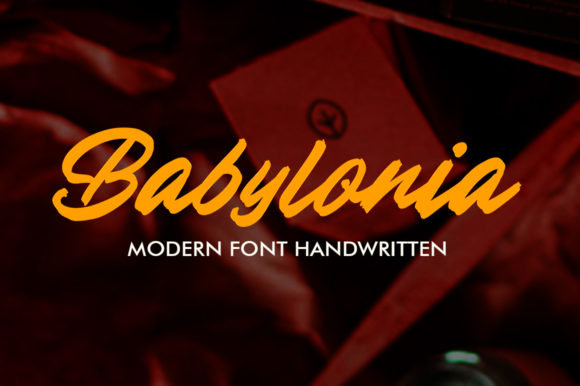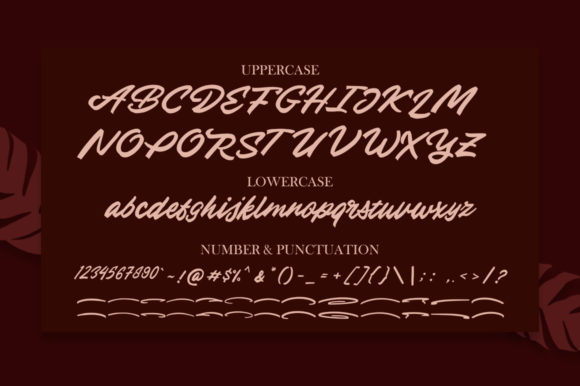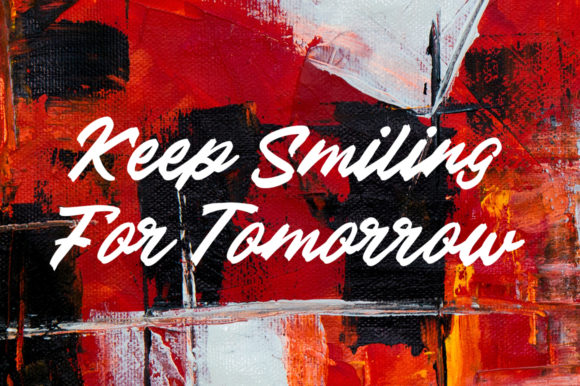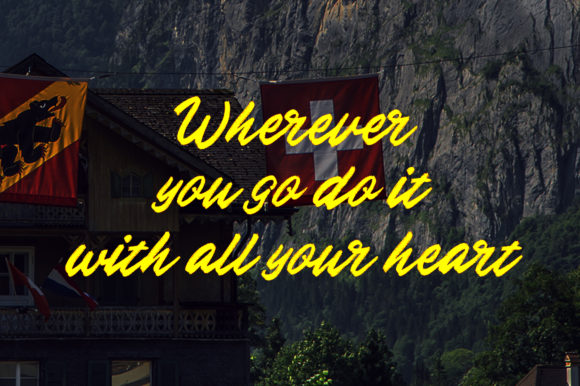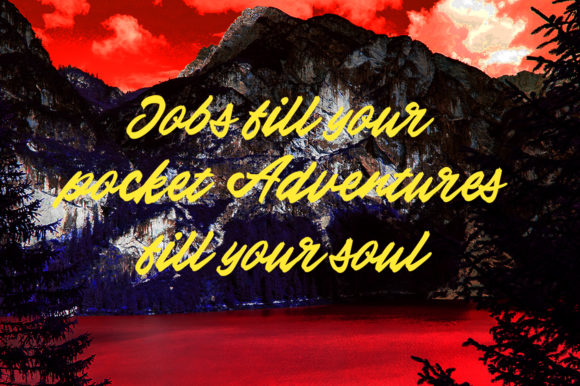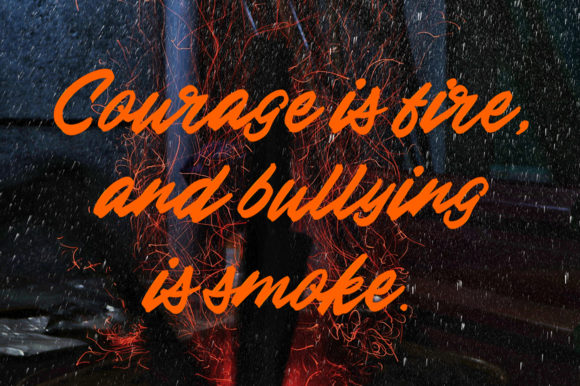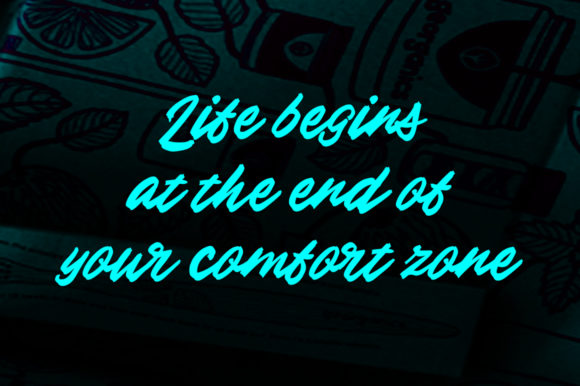
Babylonia Font
About Babylonia Font
Introducing “Babylonia” – a cute and casual handwritten font that exudes a natural and unique style. With its playful charm and versatility, this font is the perfect fit for a wide range of design projects. Let your imagination run wild, as Babylonia adds a touch of whimsy to your creative ideas.
Babylonia’s handcrafted letterforms have a friendly and approachable feel. Its organic shapes and flowing strokes give it a natural and effortless look. Whether you’re working on branding, social media graphics, invitations, or any other creative project, Babylonia will bring a sense of playfulness and character to your designs.
This font’s adaptability allows it to seamlessly blend with various design concepts. Its casual nature makes it particularly suitable for projects that require a relaxed and lighthearted feel. Explore the possibilities with Babylonia, and witness how it brings your imagination to life.
Embrace the cuteness and casualness of Babylonia, and watch as it transforms your designs into delightful creations. Let it be the font that adds a touch of whimsy and unlimited possibilities to your creative projects. With Babylonia, the only limit truly is your imagination!